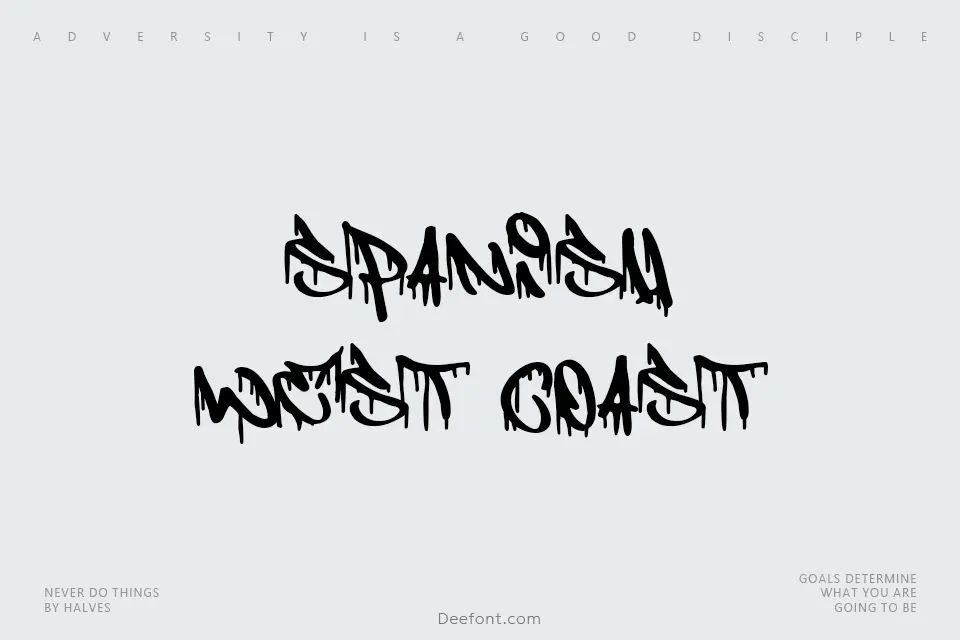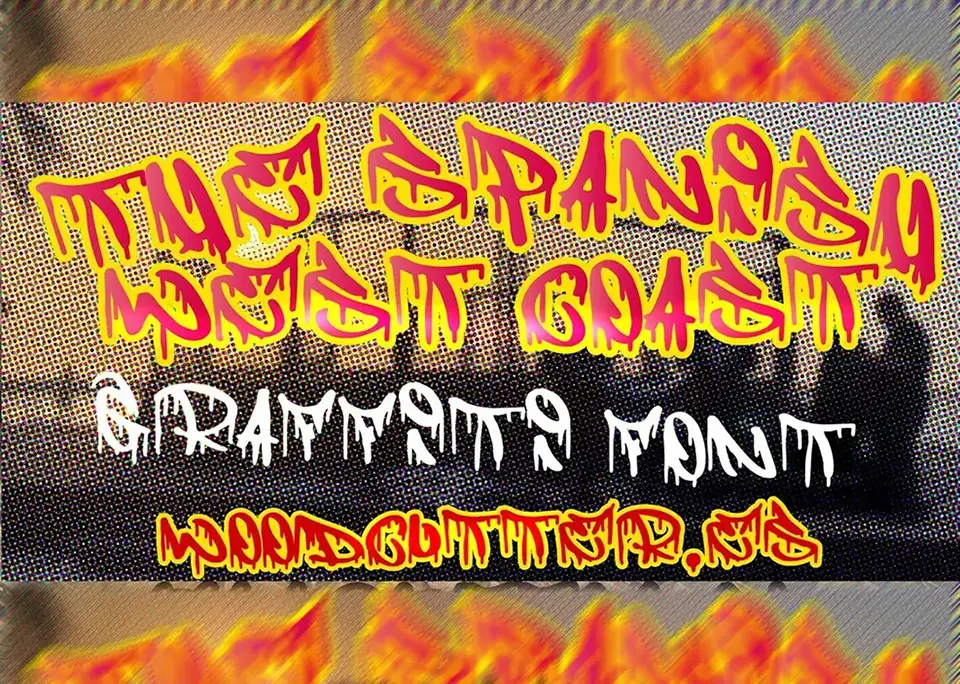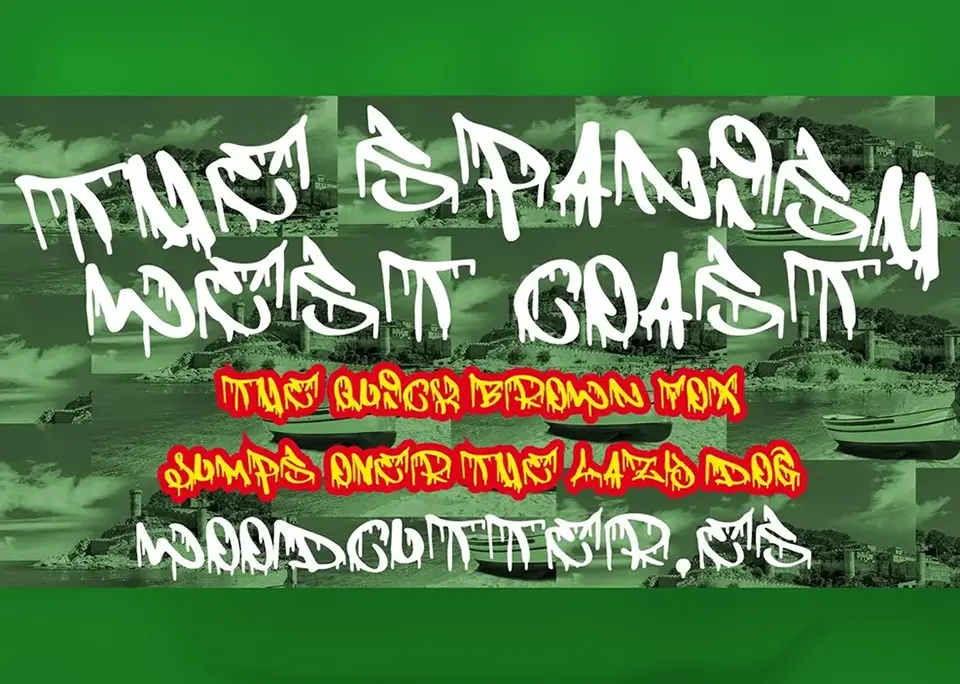
Spanish West Coast Font
Spanish West Coast is a vibrant graffiti-inspired script font that brings urban energy and creative flair to any design project. Featuring hand-drawn style characters with dynamic dripping effects, this display typeface captures the essence of street art and coastal aesthetics. Perfect for bold posters, eye-catching headlines, album covers, and contemporary branding, the font combines artistic spontaneity with legible letterforms. Its expressive design makes it an excellent choice for projects requiring personality and visual impact.